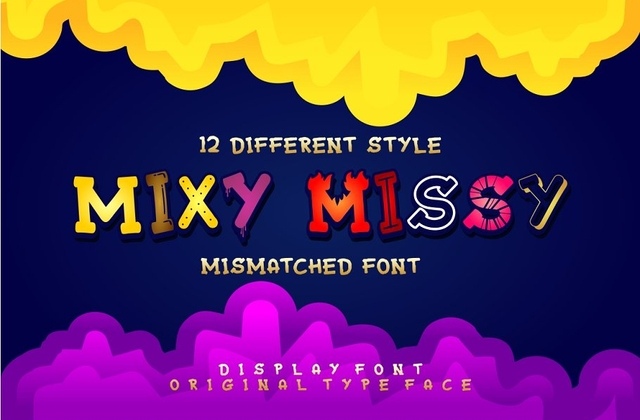
Mixy Missy Font
Mixy Missy Font is perfectly suited for children's book titles, playful brand logos, candy packaging design, toy store signage, birthday party invitations, kids' educational materials, colorful poster designs, youth-oriented marketing campaigns, and fun social media graphics.
What makes Mixy Missy Font so exciting is its irresistible charm and whimsical personality that instantly brings joy and energy to any design project. This delightful typeface features bouncy, irregular letterforms that create a sense of spontaneity and childlike wonder while maintaining excellent readability across various applications. The font's playful character variations and organic shapes give each word a unique, handcrafted feel that resonates with audiences of all ages who appreciate creativity and fun. Mixy Missy Font stands out through its ability to convey happiness, creativity, and approachability, making it perfect for brands and projects that want to establish an emotional connection through lighthearted, engaging typography that feels genuinely joyful and authentic.
The Mixy Missy Font family includes Regular and Bold weights, along with decorative alternates and special characters that enhance the font's playful nature. The family also features contextual alternates that automatically vary letter shapes to create a more natural, hand-drawn appearance throughout extended text.
The technical craftsmanship of Mixy Missy Font includes a comprehensive character set with uppercase and lowercase letters, numerals, punctuation marks, and playful symbols. The font has been optimized for both digital and print applications, ensuring consistent performance while maintaining the organic, handmade quality that makes each character feel unique and engaging. Advanced OpenType features provide automatic letter variations for enhanced visual interest.
Whether you're designing children's products, creating educational content, developing playful branding, or crafting marketing materials that need to convey joy and creativity, Mixy Missy Font delivers the perfect combination of whimsical charm and professional reliability that makes your designs memorable and emotionally engaging for contemporary audiences seeking authentic, fun experiences.